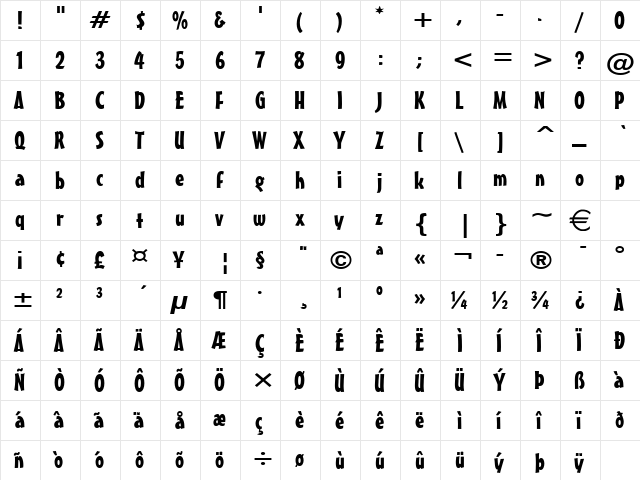
MasseyWide Normal
MasseyWide takes a measured approach to typography — its balanced proportions and neutral character make it a reliable workhorse for both digital and print work.